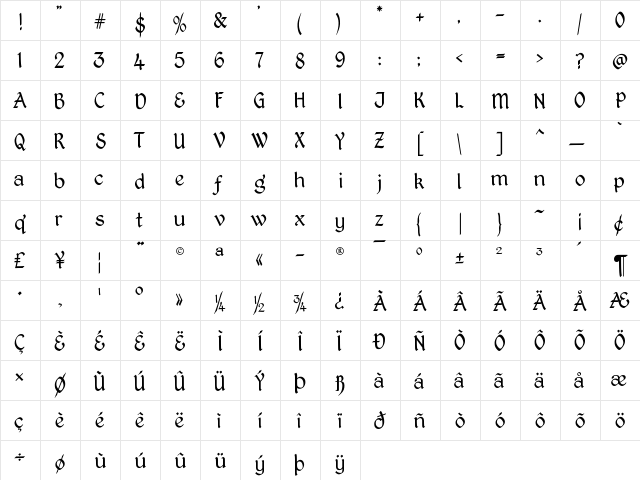
Kingthings Petrock Light Regular
| Designer | Kevin King 2006 |
Design Context for Kingthings Petrock Light Typeface
Kingthings Petrock Light is a composed and adaptable typeface that performs quietly and consistently across a wide range of design contexts. The delicate stroke weight brings airiness and refinement to layouts.